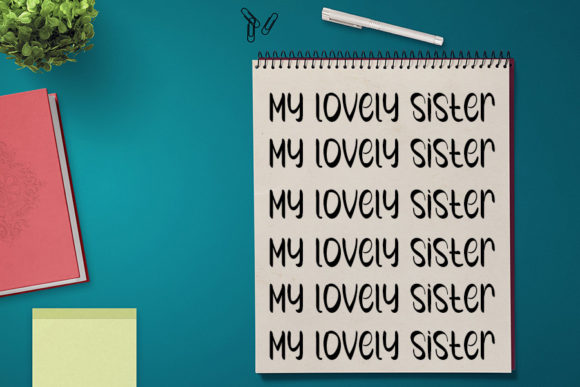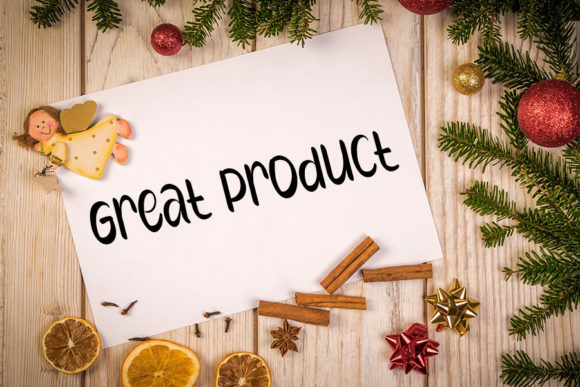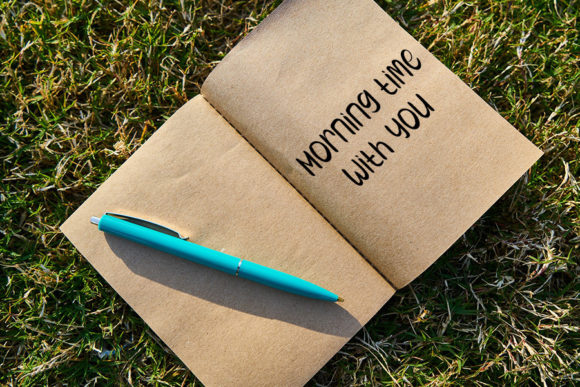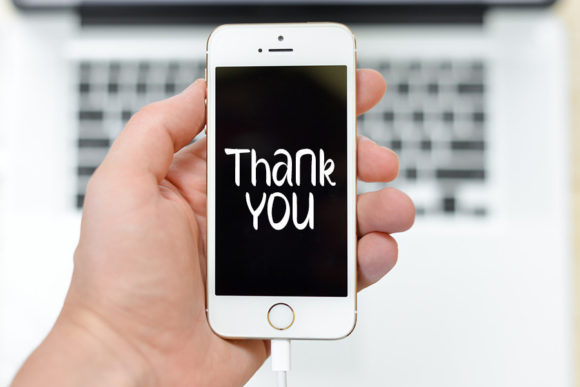
About Magic Day Font
Magic Day is a playful and smart handwritten font with an impeccable form, inspired by a timeless calligraphy. Balanced and varied, this font was designed to enhance the beauty of your projects.